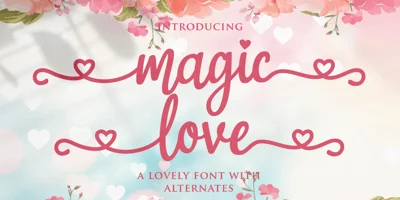
Magic Love Font
Magic Love Font is perfect for romantic wedding invitations, Valentine's Day campaigns, love-themed greeting cards, couple's photography branding, romantic event posters, enchanting book covers, heartfelt social media graphics, intimate restaurant menus, anniversary celebrations, and dreamy packaging designs. Its romantic character makes it ideal for projects requiring emotional connection and enchanting visual appeal.
What makes Magic Love Font exciting is its captivating ability to evoke deep emotions through carefully crafted letterforms that embody the essence of romance and magic. The font features flowing curves and delicate details that seem to dance with love and passion, creating an atmosphere of enchantment and intimacy. Its whimsical character transforms ordinary words into expressions of affection while maintaining beautiful readability across all romantic applications.
The Magic Love Font family includes Regular, Bold, Light, Script, Decorative, and Heart variations. Each style preserves the font's romantic essence while offering different levels of emotional expression and decorative elements. The comprehensive character set includes love symbols, heart ornaments, flourishes, and special romantic glyphs that enhance love-themed typography projects and emotional design communications.
Romantic brands and wedding professionals consistently choose Magic Love Font for projects demanding heartfelt typography solutions. The font's loving character creates instant emotional connections while ensuring clear communication of romantic messages. Its versatility makes it suitable for both intimate personal projects and large-scale commercial campaigns celebrating love and relationships.
Whether you're designing wedding materials, creating Valentine's marketing campaigns, or developing romantic brand identities, Magic Love Font provides the perfect combination of emotion and elegance. The font's lovingly crafted letterforms ensure beautiful results across various sizes while maintaining the warmth and passion that makes hearts flutter with joy and excitement.
The timeless romance of Magic Love Font makes it exceptional for creating lasting memories through typography that speaks directly to the heart. Its magical charm and loving spirit work seamlessly across traditional print applications and modern digital love stories. The font performs beautifully in both grand romantic gestures and subtle expressions of affection.
Spread love through design with Magic Love Font and discover how romantic typography can transform ordinary projects into extraordinary celebrations of love and connection. This remarkable typeface captures the magic of romance with unparalleled beauty, making it indispensable for anyone creating heartfelt communications that celebrate the power of love.